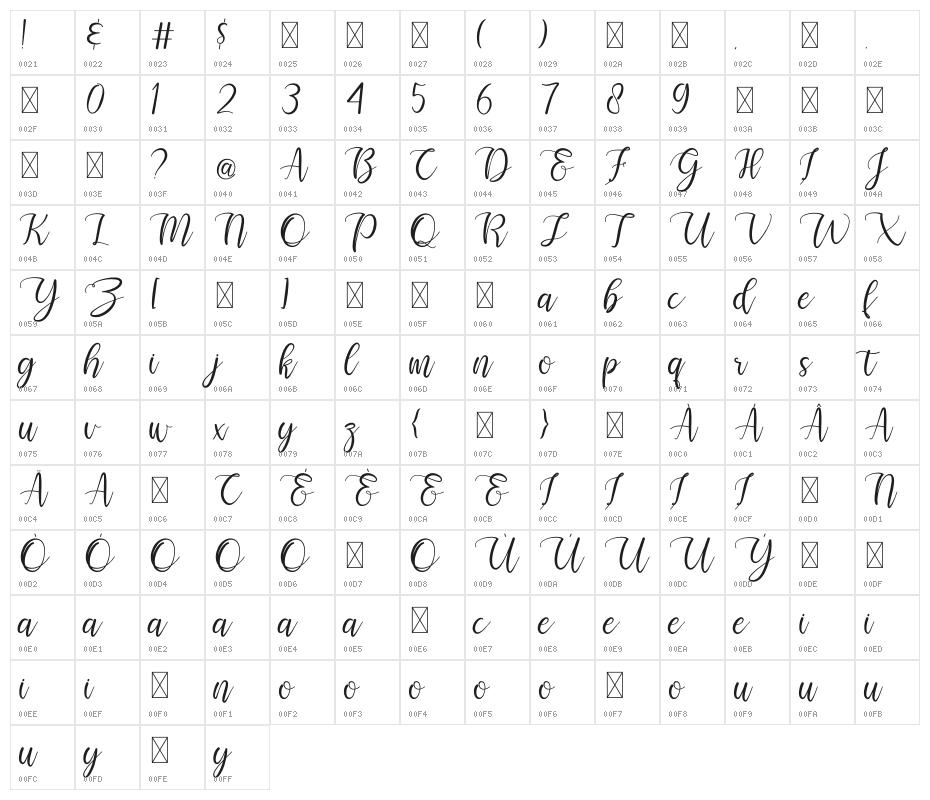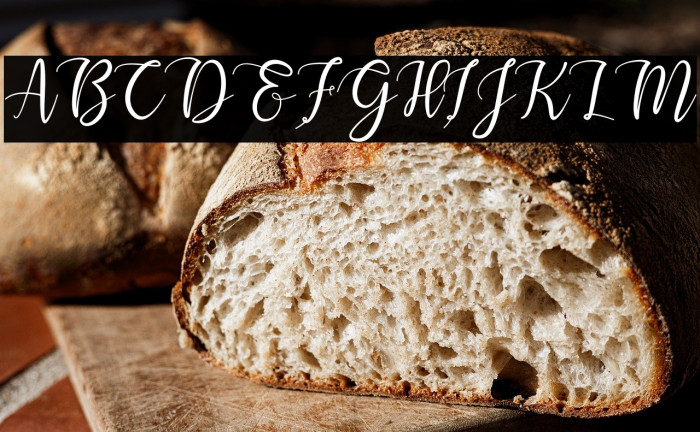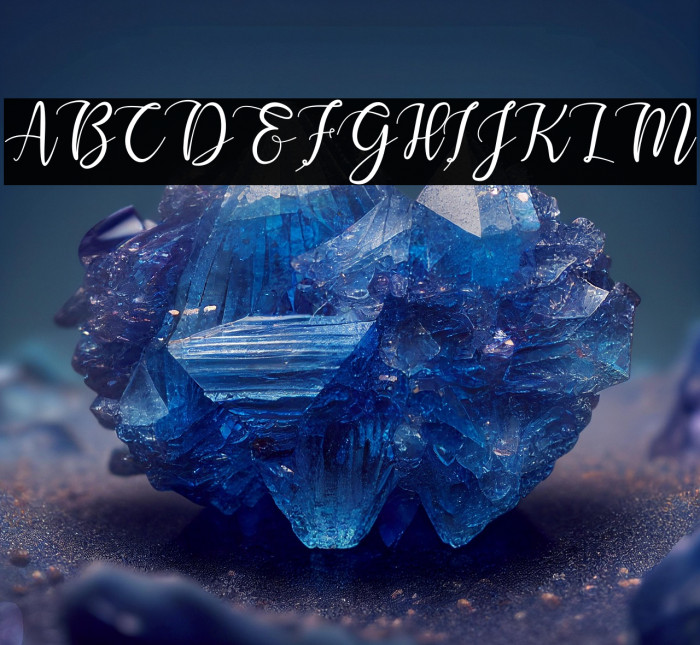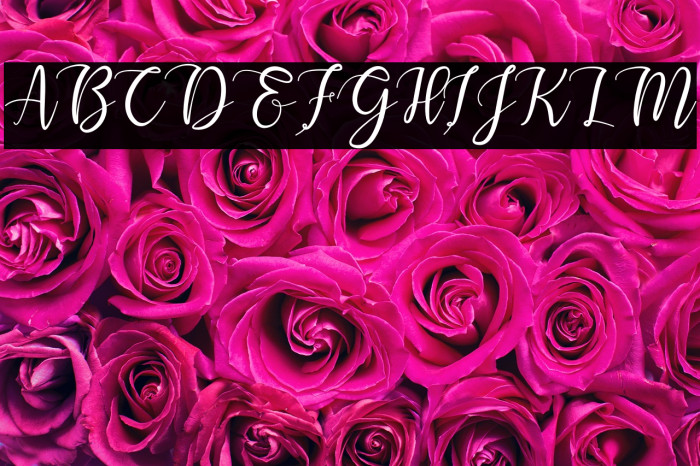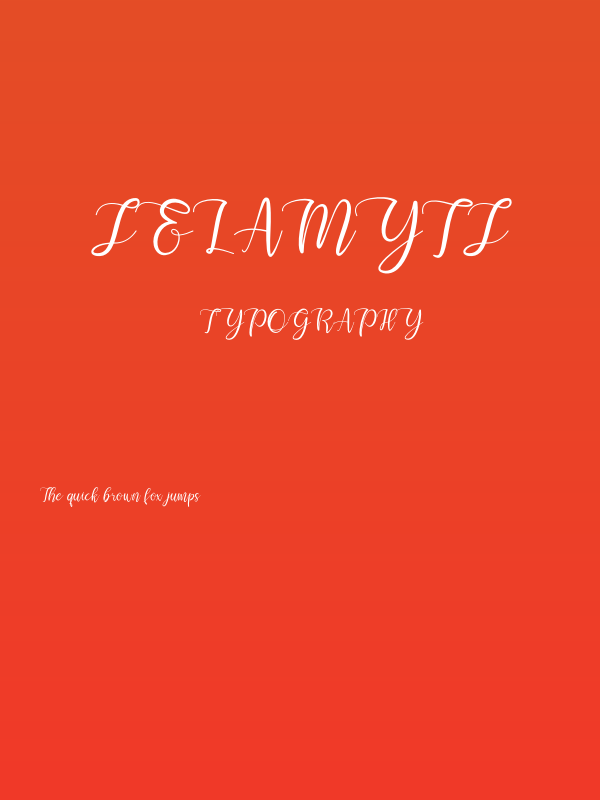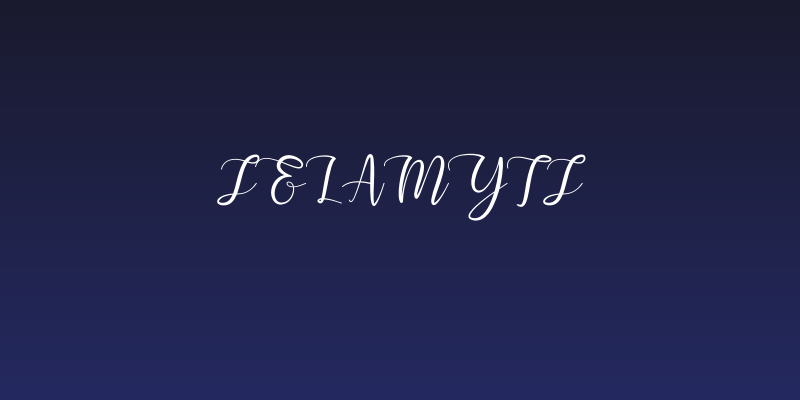
Selamyts Font
Selamyts Description
This elegant script font features a flowing, cursive style with smooth, connected strokes that give it a handwritten appearance. The uppercase letters are slightly more ornate, with subtle flourishes that add a touch of sophistication. The lowercase letters maintain a consistent flow, enhancing readability while retaining an artistic flair. Numbers and special characters are designed to match the overall aesthetic, ensuring a cohesive look across all text elements. The font's graceful curves and balanced proportions make it suitable for a variety of design projects.
| Overall Style | Elegant, Handwritten |
| Proposed Projects | Ideal for wedding invitations, greeting cards, branding, and elegant packaging designs. |